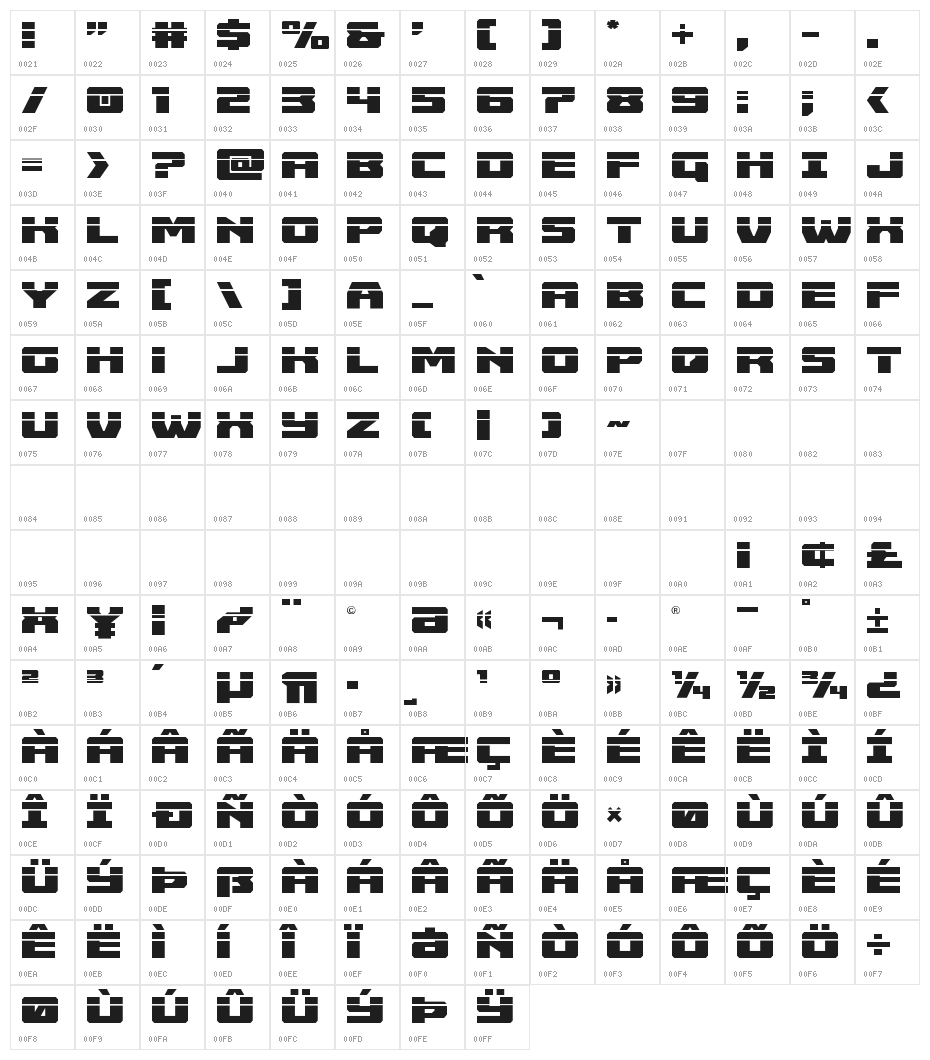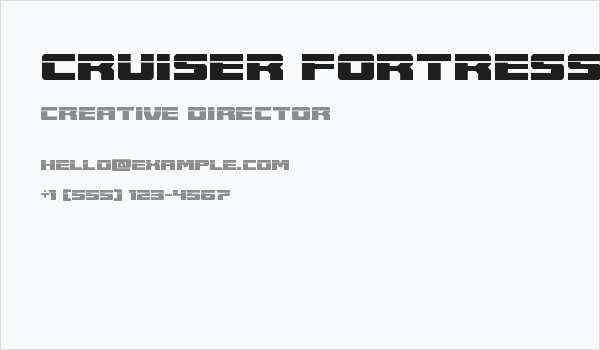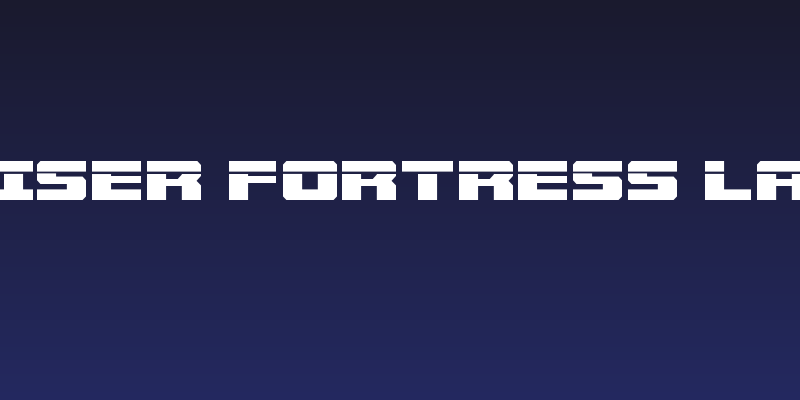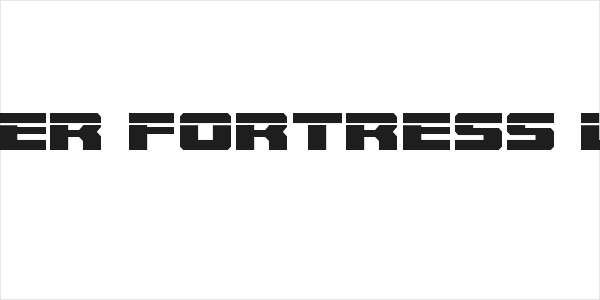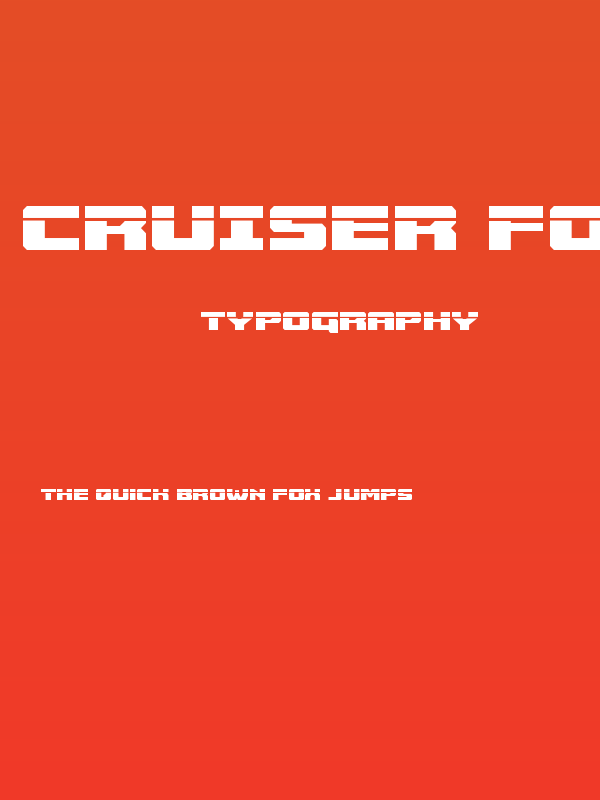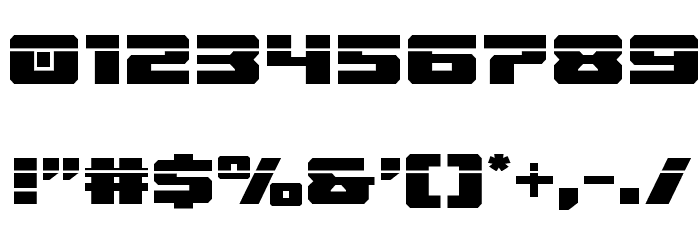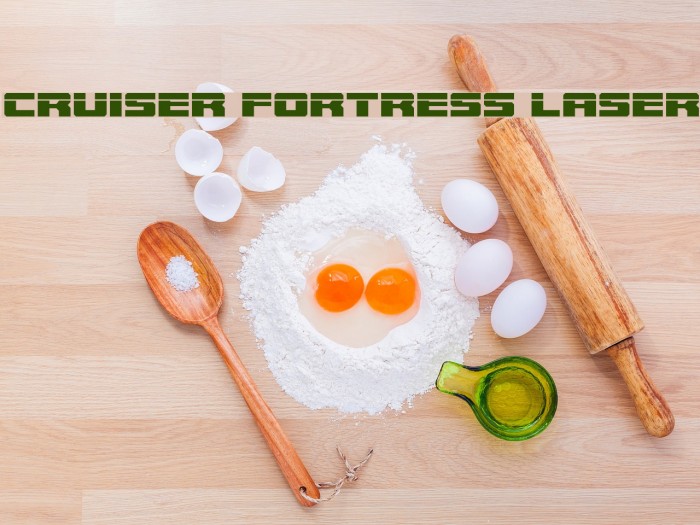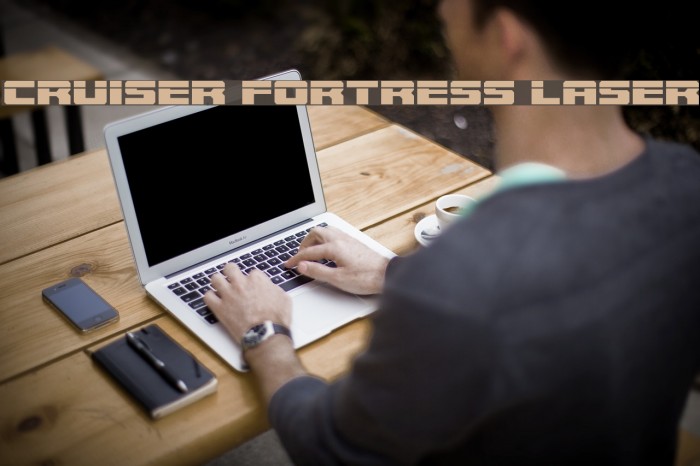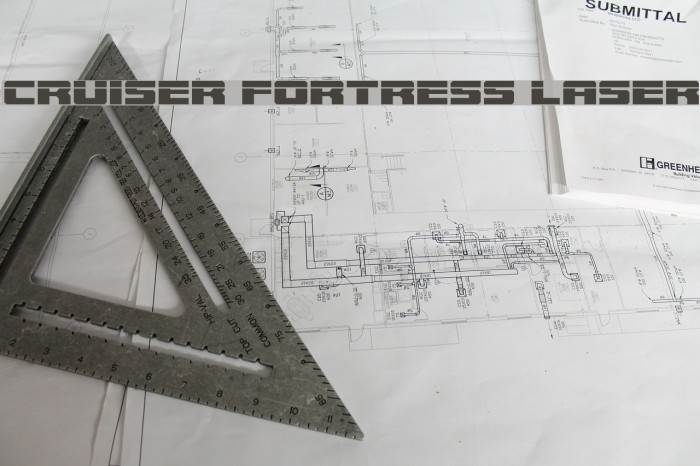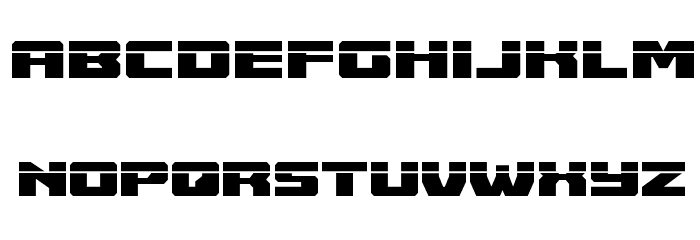
Cruiser Fortress Laser Font
This font features a bold, geometric design with a futuristic and industrial feel. The characters are constructed with sharp angles and straight lines, creating a sense of strength and modernity. The uppercase and lowercase letters maintain a consistent style, with the lowercase being slightly smaller but equally bold. The numerals and special characters follow the same design principles, ensuring uniformity across all glyphs. The font's blocky appearance makes it highly legible and impactful, suitable for projects that require a strong visual presence.
| Proposed Projects | Ideal for use in technology branding, video game titles, sci-fi movie posters, and industrial-themed graphic designs. |